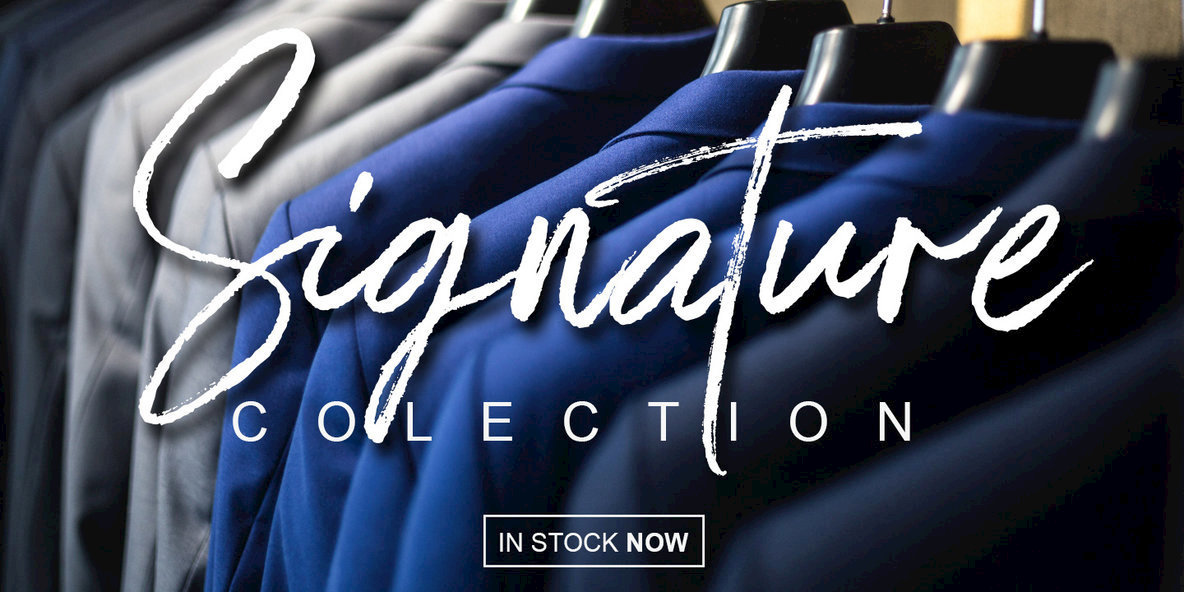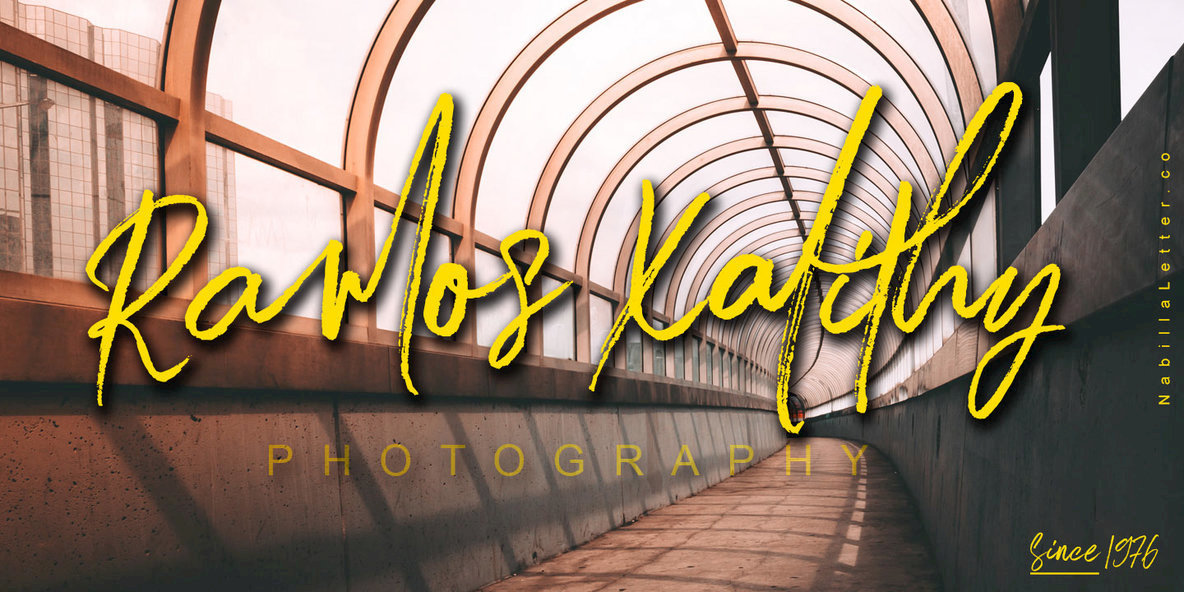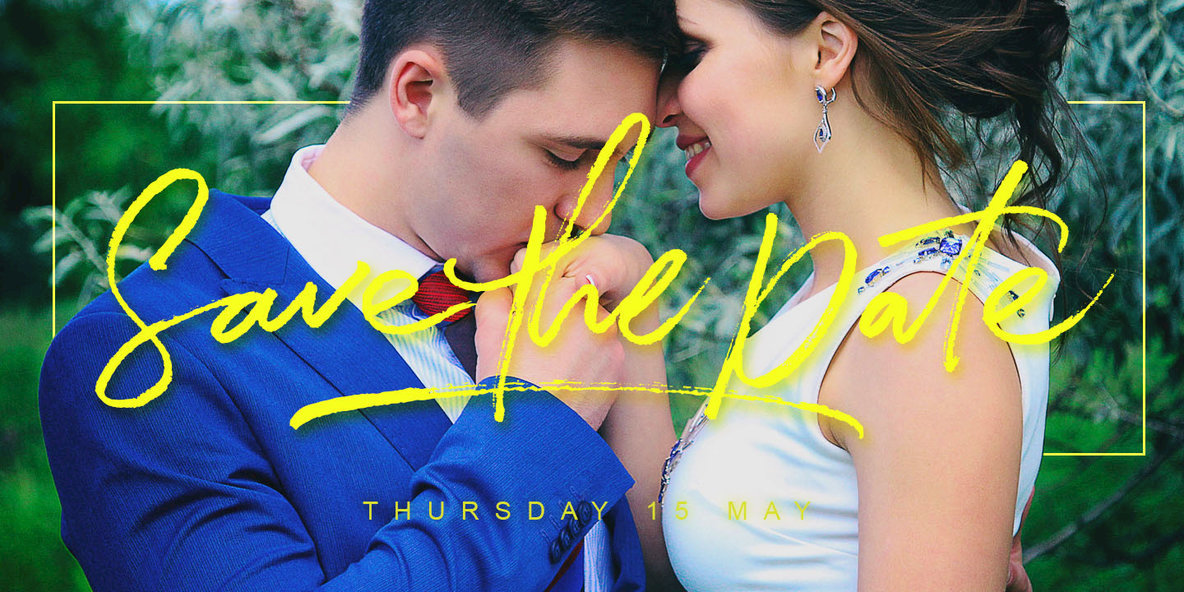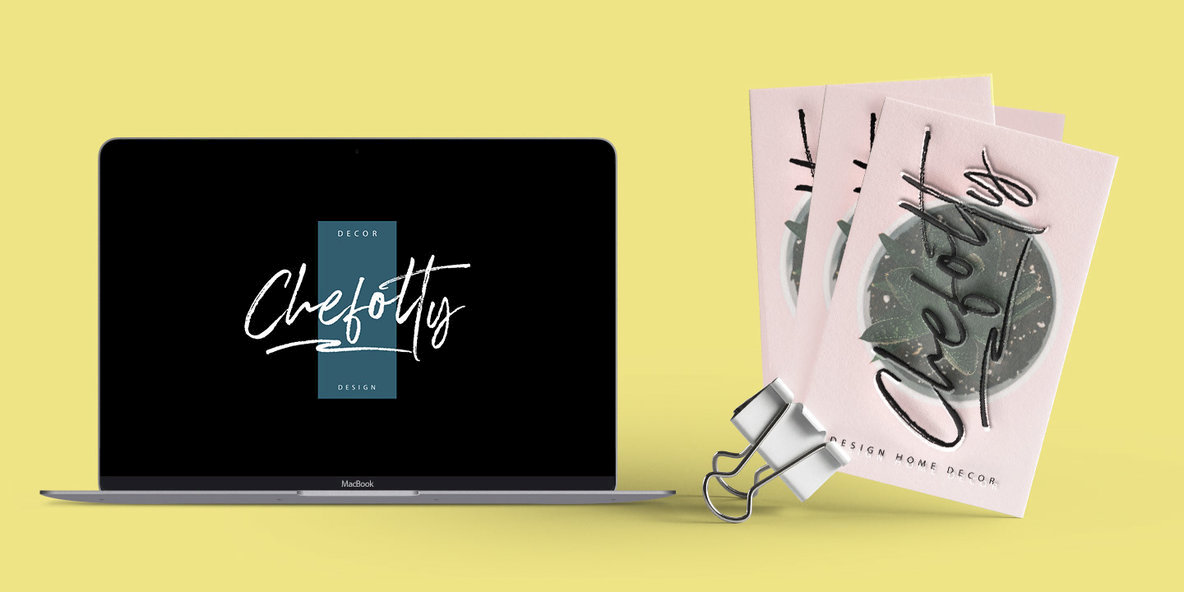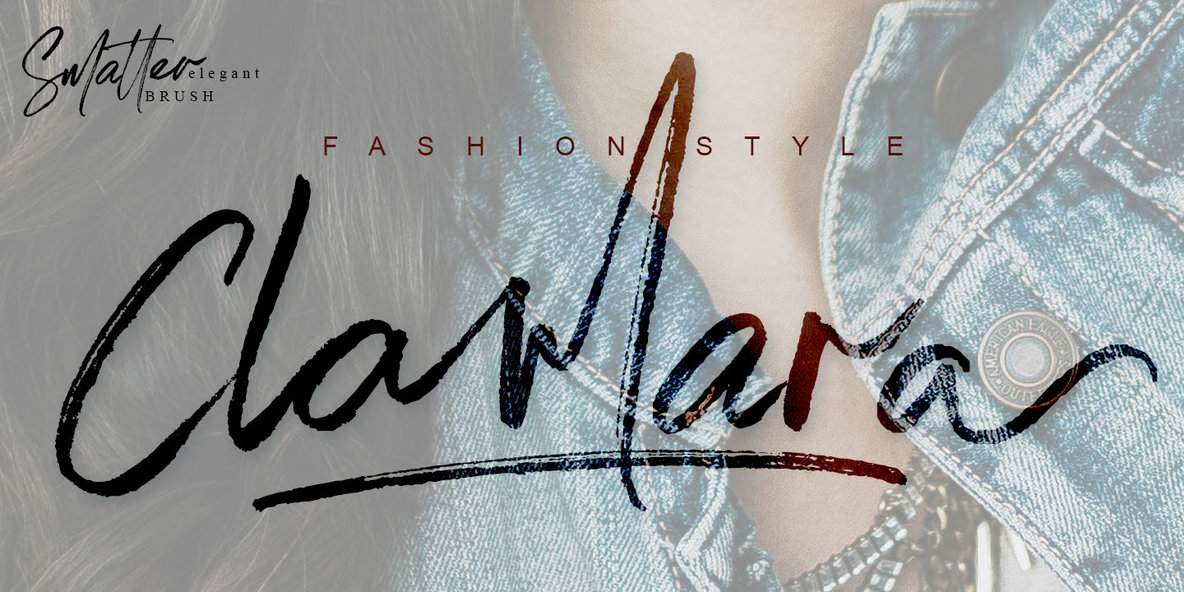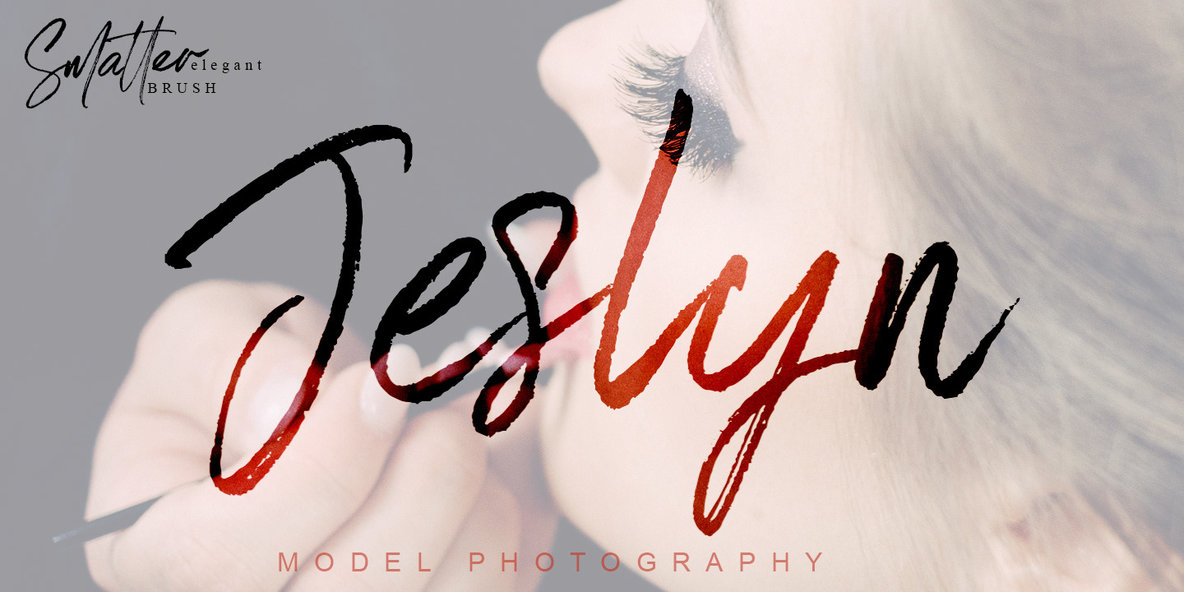
Smatter Font
Introducing Smatter | Brush Font, Rough handwritten letter. With a dry and nice scratch. It is suitable for various purposes. Handwritten text font containing uppercase & lowercase letters, numbers and punctuation. smooth and elegant fonts and alternating to the handwriting nuances of the goods. and look pretty on business cards, envelopes, logos, nameplate, greeting cards, wedding materials, packaging and more! Pair with simple Sans Serif for the dipole, contemporary style.